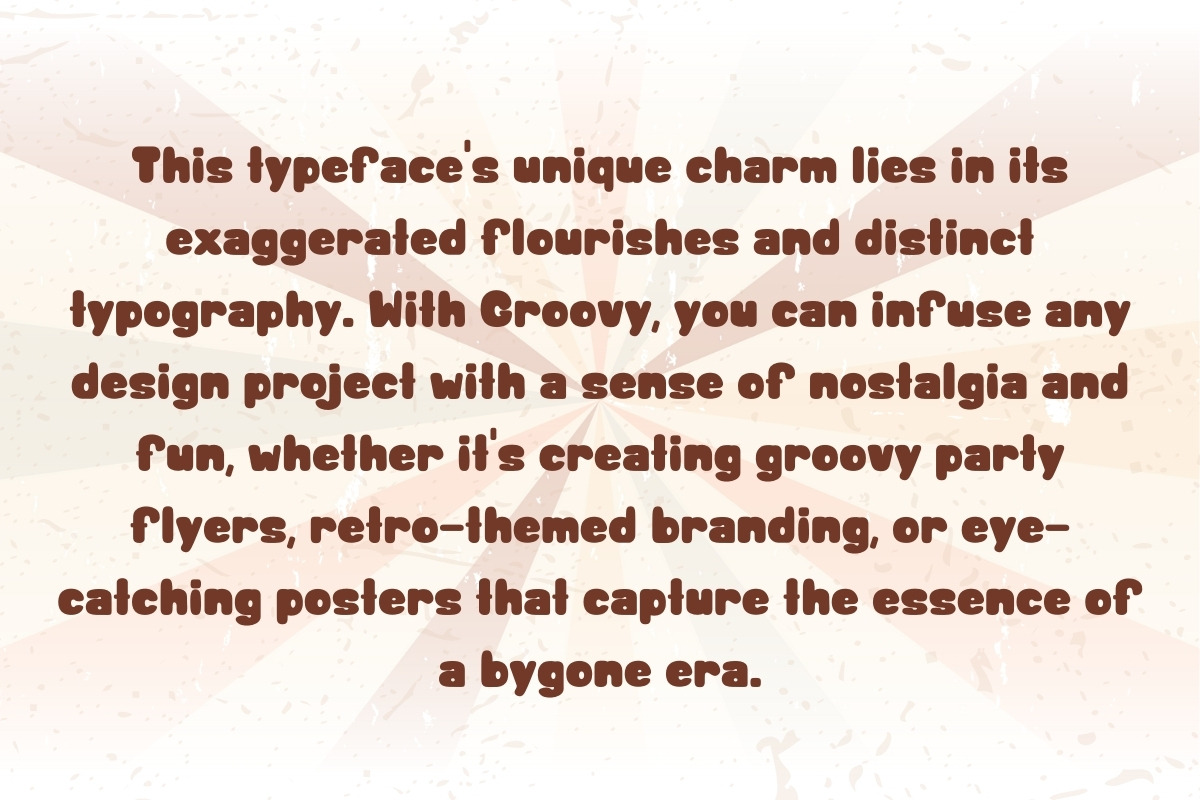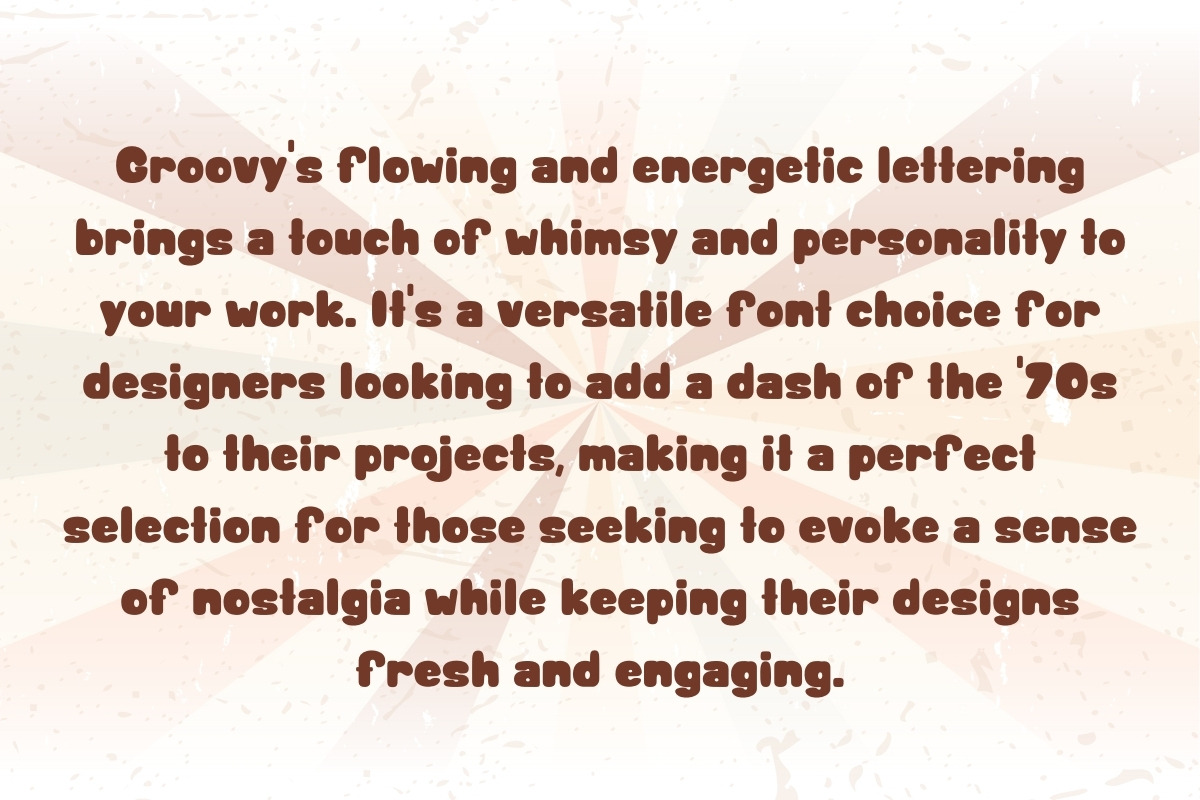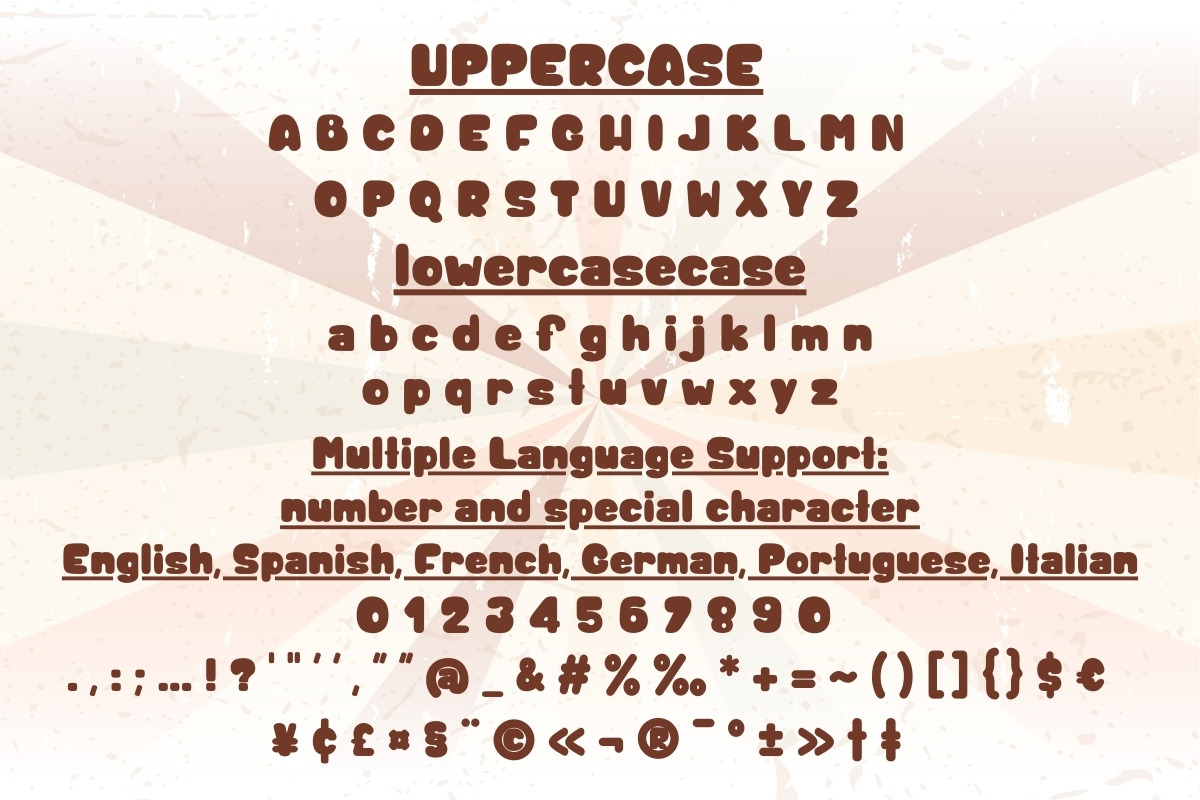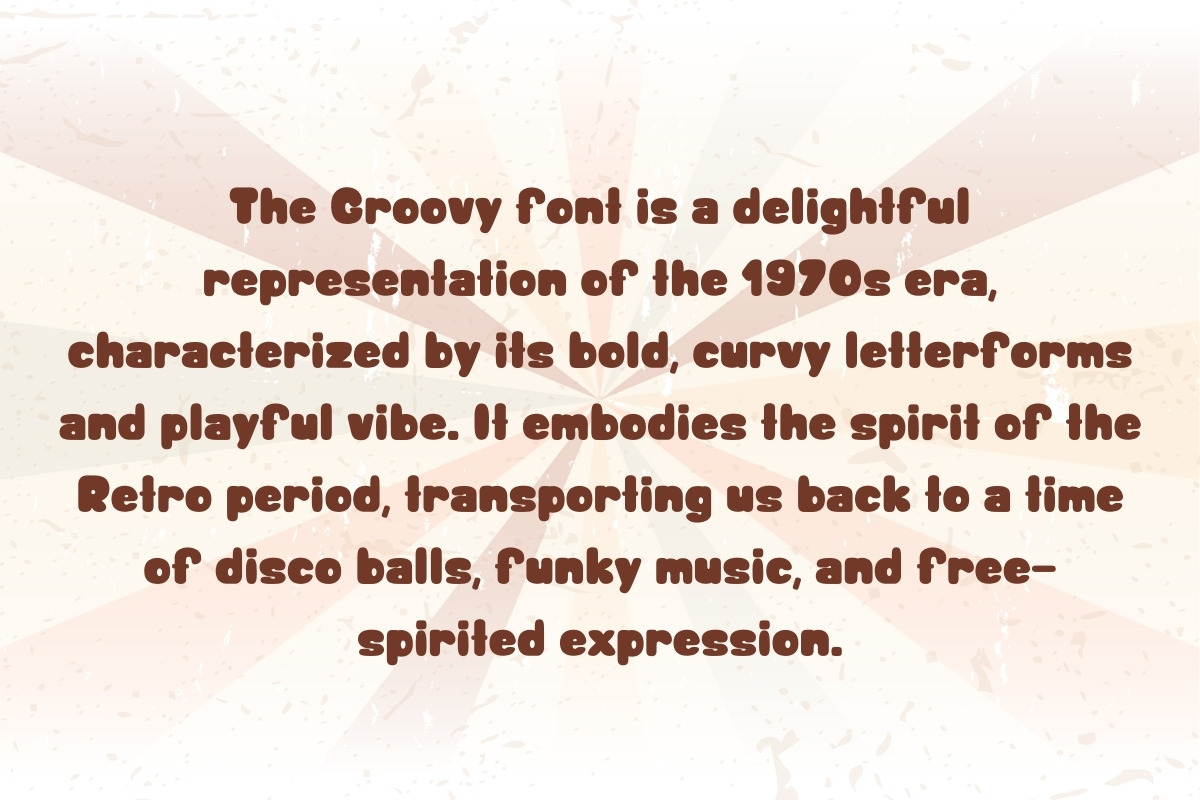
Magic Groovy Era - Handwritten
"The Groovy font, with its funky and nostalgic aesthetics, perfectly captures the essence of the Retro era, bringing a sense of nostalgia and vibrancy to any design project, whether it's a vintage-inspired poster, a disco-themed party invitation, or a fun 70s-inspired branding campaign, this typeface's unique flair adds an extra layer of personality and style to your creative work."